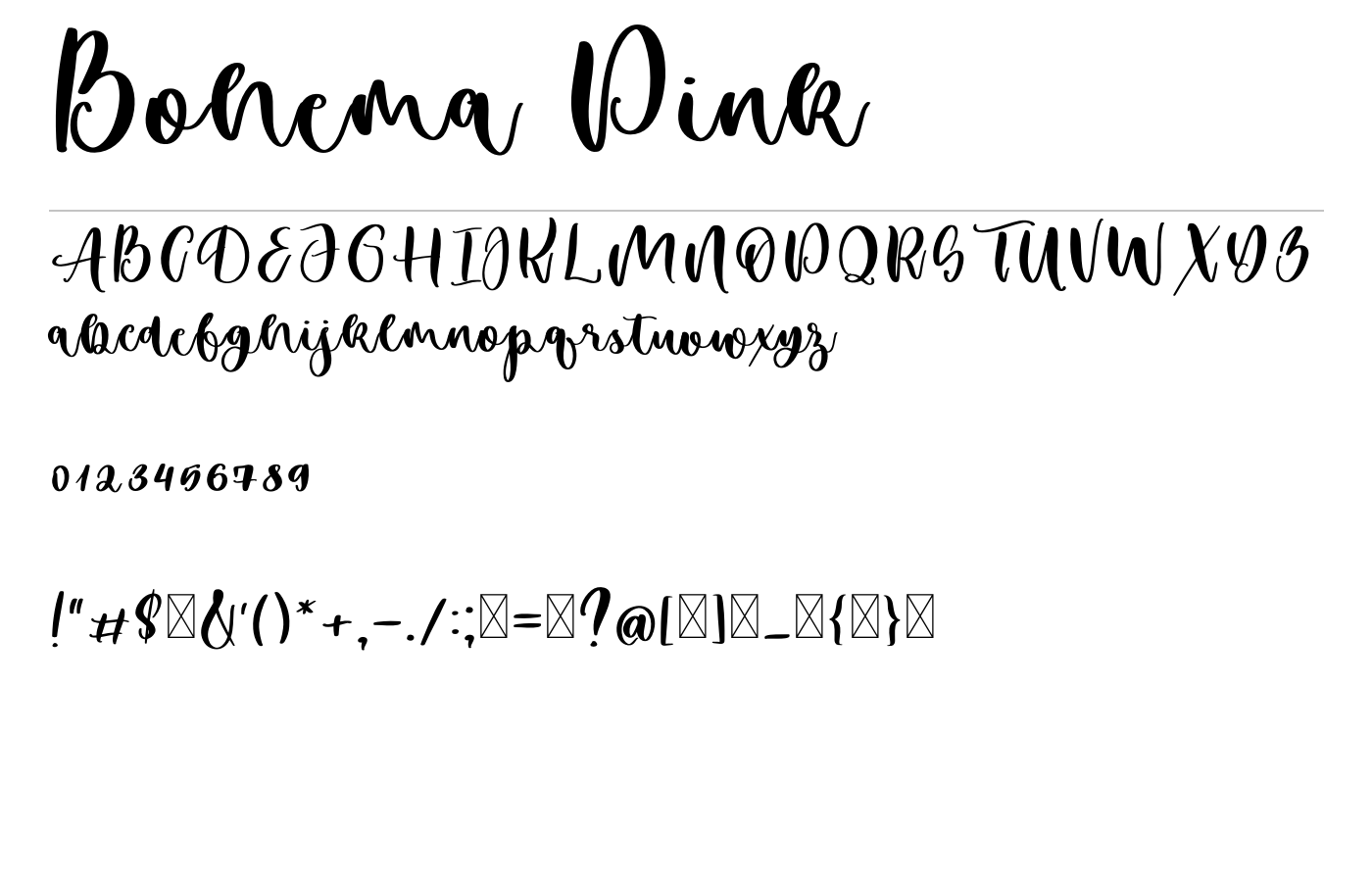
Bohema Pink is a playful, modern script font with a hand-lettered feel, featuring smooth, flowing strokes and lively curves that give it a warm and inviting personality. Its casual yet elegant style makes it ideal for creative branding, invitations, and feminine or artistic projects where a personal touch is desired. This font works beautifully in headlines and logo designs where a charming, handcrafted look is key.
Bohema Pink Font
About Bohema Pink Font
| Font family | Bohema Pink Font |
| Designer | CallMeStasia |